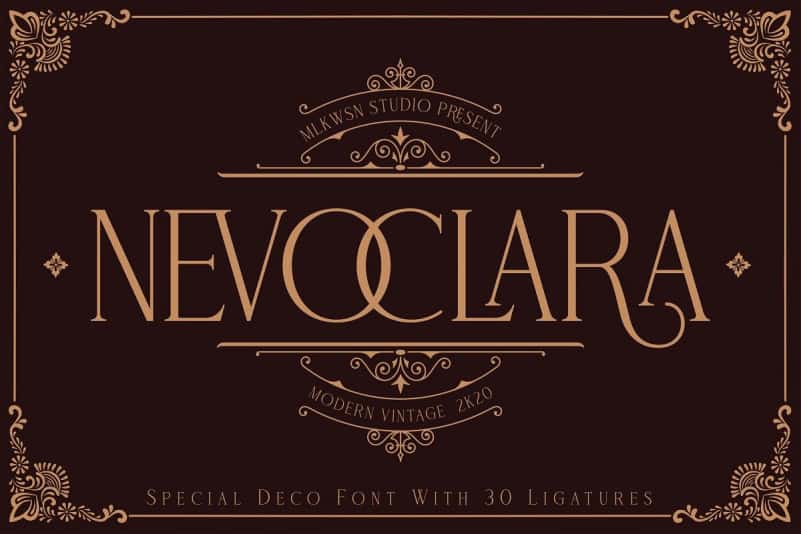
Nevoclara Modern Vintage Font
This is a display typeface inspired by vintage travel posters and magazines. The complete glyph set contains uppercase, small caps, numerals, punctuation, ligatures and multilingual support. It’s designed and shared by MLKWSN.
Nevoclara Modern Vintage Font is a Modern Vintage font with beautiful ligatures,with special alternative glyphs, and multilingual support. inspired by the decorative arts and architecture movement that originated in the 1920s and developed into a major style in the Western European United States during the 1930s.
NEVOCLARA is perfect for your project and allows you to create designs, headlines, posters, logos, badges, t-shirts and many more that are beautiful. It is also best used for posts, logos, posters, certificates, labels and more.